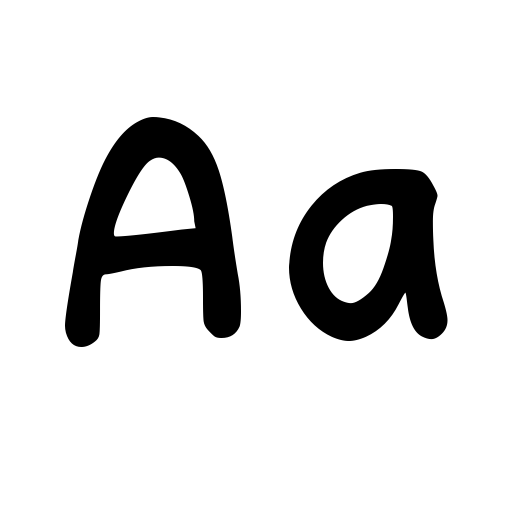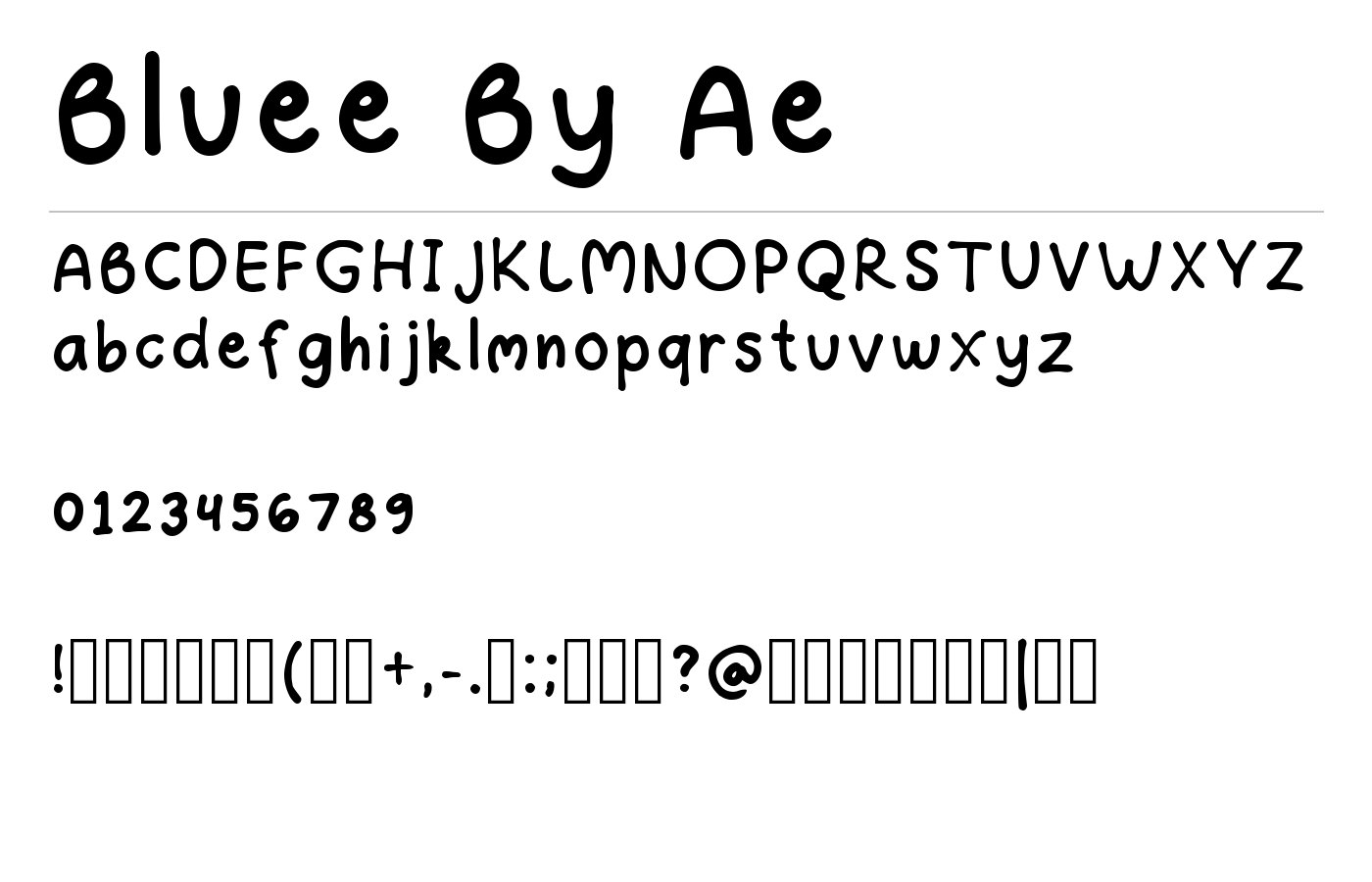
Bluee By Ae is a playful, rounded sans-serif font with a casual, hand-drawn charm. Its even weight, soft curves, and simple letterforms make it ideal for fun, friendly designs like children’s books, informal branding, or lighthearted social media graphics. This font brings warmth and approachability, perfect for projects needing a personal, whimsical touch.
Bluee By Ae Font